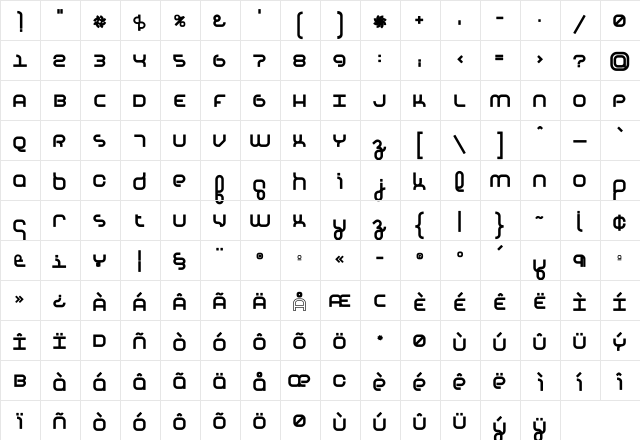
Basix Heavy
Design Context for Basix Typeface
Basix offers clean, dependable letterforms without strong stylistic allegiance, making it a practical choice for designers who need flexibility.
Pro Tip: Pair Basix with a font of contrasting weight or personality to build a more expressive typographic hierarchy.